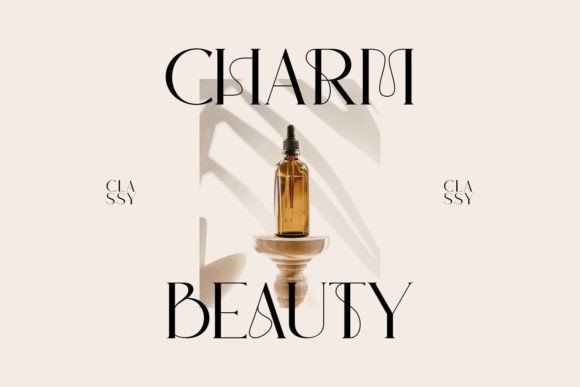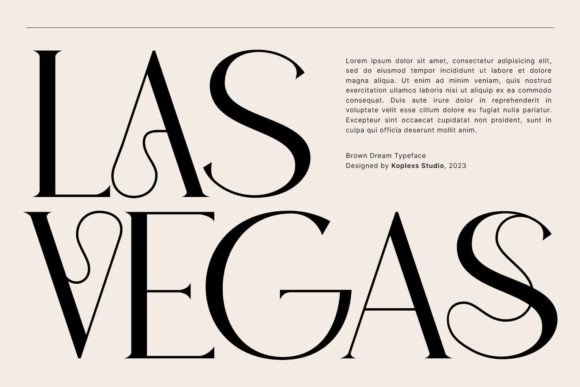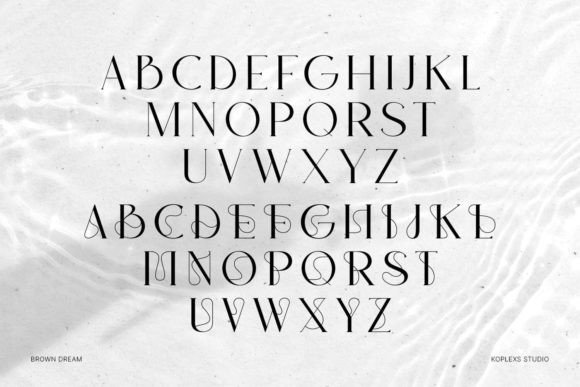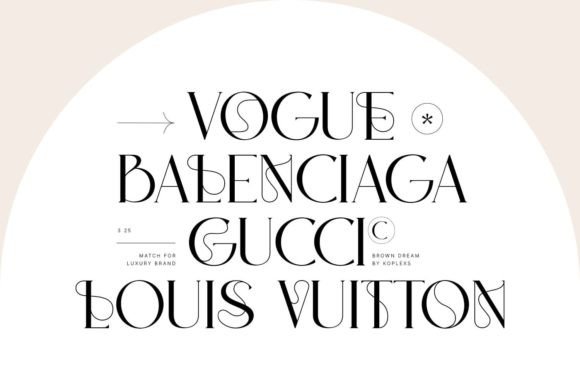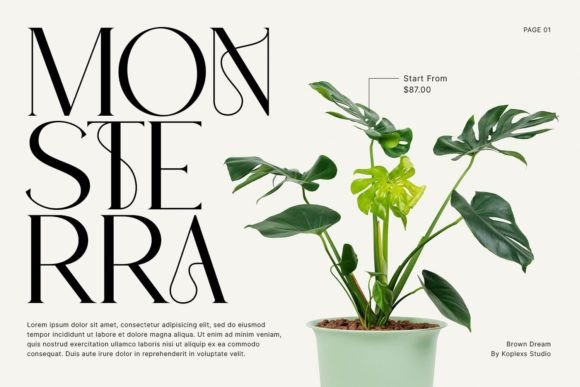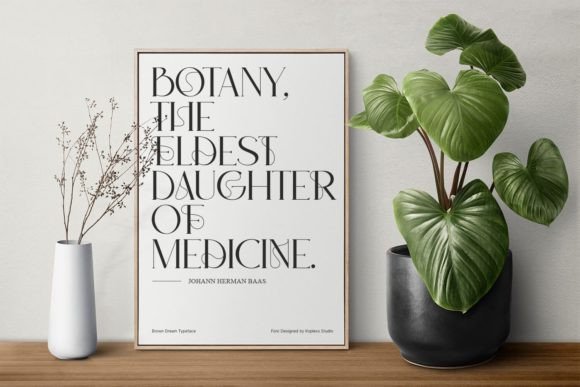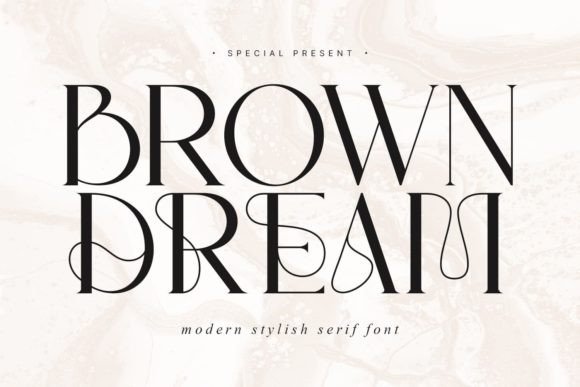
Brown Dream Font: Elevate Your Designs with Modern Elegance
In the world of typography, a font can make or break a design. For designers and crafters seeking a modern, stylish, and feminine touch, the Brown Dream font is an exceptional choice. This beautiful serif font is a collection of classy characters that can instantly elevate your branding, logos, book covers, perfumes, fashion magazines, or invitations. In this article, we’ll dive into the features and benefits of the Brown Dream font, exploring how it can become your go-to typeface for creating stunning designs.
A Blend of Beauty and Class
Brown Dream font boasts a unique blend of beauty and class, making it perfect for designs that require a touch of sophistication. Its modern and stylish approach to serif typography sets it apart from more traditional fonts, offering a fresh perspective for designers looking to make a statement. Whether you’re working on a logo, a book cover, or a fashion magazine, Brown Dream provides the perfect balance of elegance and flair.
Primary Uses of Brown Dream Font
While Brown Dream font is versatile and can be used across various design projects, it shines brightest in applications where elegance and modernity are key. Some of its primary uses include:
- Logos: Create memorable and stylish logos that stand out.
- Book Covers: Add a touch of sophistication to your book covers, making them more appealing to readers.
- Perfumes: Elevate your perfume branding with a font that exudes luxury and elegance.
- Fashion Magazines: Give your fashion magazine a modern and stylish look that captivates your audience.
- Invitations: Make your invitations special with a font that offers a unique and classy feel.
Features That Make Brown Dream Stand Out
Brown Dream font comes with a range of features that make it a valuable addition to any designer’s toolkit. Some of its standout features include:
- Decorative Characters: The font includes lots of decorative characters, allowing you to add a creative touch to your designs.
- Unique Alternative Characters: With a variety of unique alternative characters, you can customize your text to fit your design’s tone and style.
- OpenType Features: Access the large selection of alternate letters and ligatures through OpenType features, giving you the flexibility to create unique and personalized designs.
Tips for Using Brown Dream Font
To make the most of Brown Dream font, here are some tips:
- Experiment with OpenType Features: Don’t hesitate to explore the OpenType features to find the perfect combination of letters and ligatures for your design.
- Mix and Match: Try mixing and matching different characters to create a unique look that stands out.
- Pair with Complementary Fonts: For added versatility, consider pairing Brown Dream with complementary fonts to create visual interest.
Brown Dream font is a modern, stylish serif font that brings a touch of elegance and femininity to any design project. With its blend of beauty and class, it’s perfect for designers and crafters looking to create stunning logos, book covers, perfumes, fashion magazines, or invitations. By leveraging its unique features, such as decorative characters, unique alternative characters, and OpenType features, you can elevate your designs to new heights. Whether you’re a seasoned designer or just starting out, Brown Dream font is sure to become a valuable asset in your typography arsenal.